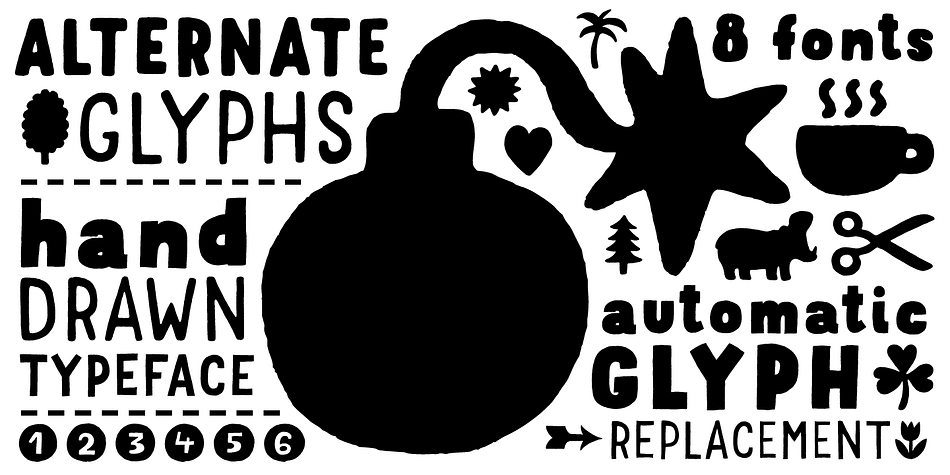
Mr Dodo
Designed by Aleksandra and Daniel Mizielińscy, Mr Dodo is a display sans and hand display font family. This typeface has eight styles and was published by Hipopotam Studio.
Mr Dodo is a hand drawn typeface family with eight styles.
Four weights with a rounded version for each one.
It has uppercase and lowercase characters with up to three alternate glyphs.
Each style was drawn separately.
We did not interpolate any glyphs to keep an irregular, organic feeling.
This way you can combine different styles without worrying that same characters will look like a awkward copy when standing close to each other.
It has build in OpenType Contextual Alternates feature that will automatically set alternate glyphs depending on frequency of appearance of the same character (even in web font but only in HTML5 browsers). The script doesn’t just throw random glyphs.